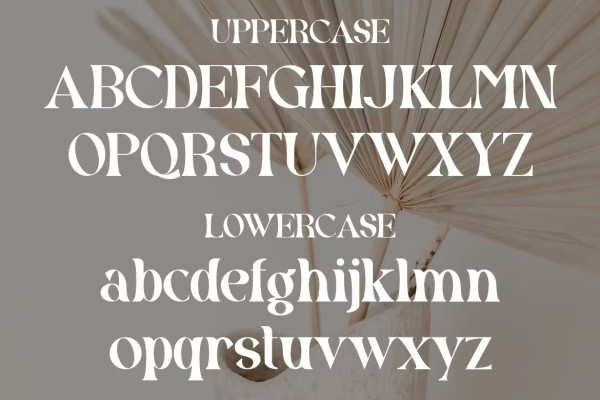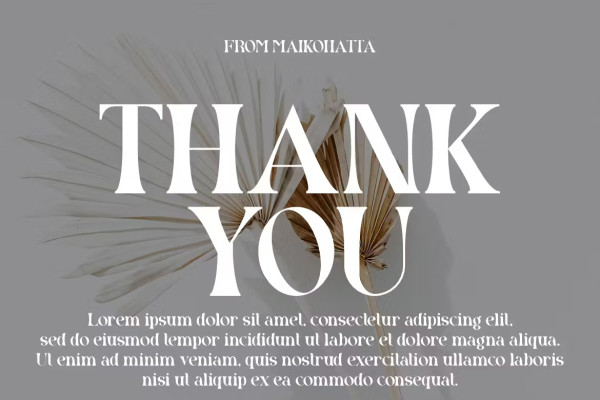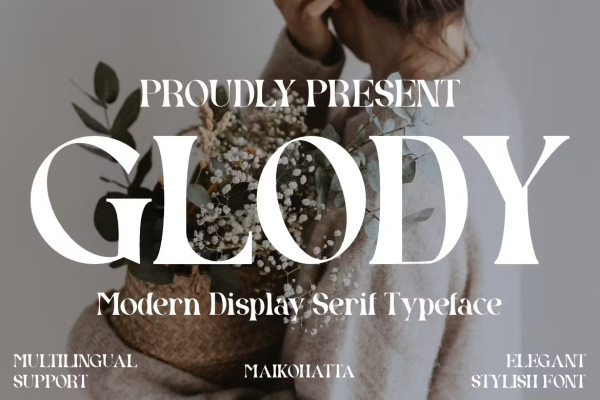
Glody Font
Glody Font – Serif Font – Modern Font is a bold and authentic display font. The font is suitable for any branding projects like cover, Template design, esports, etc. She is exceptional in a wide range of contexts